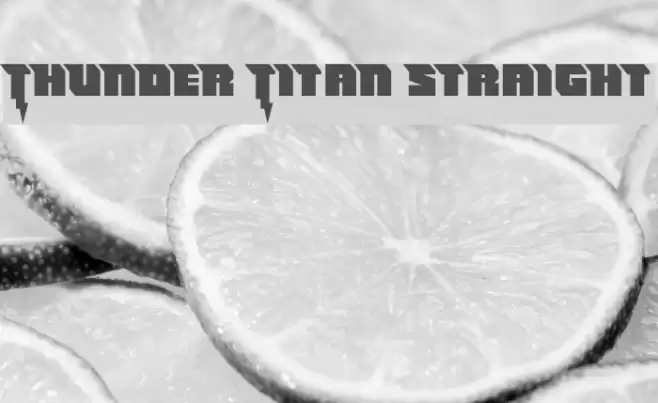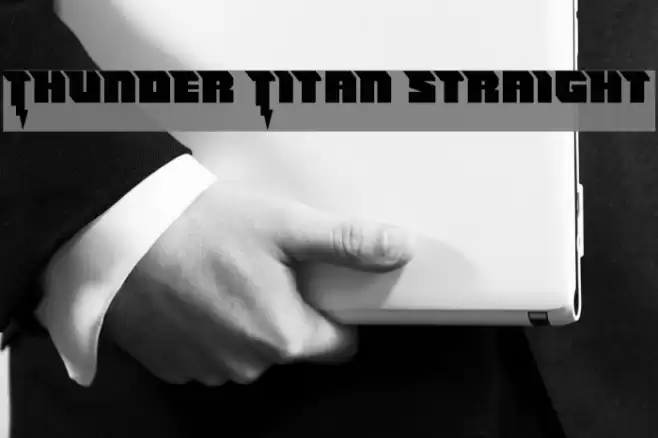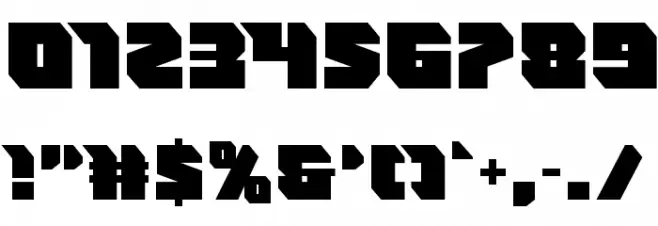
Thunder Titan Straight Font
Thunder Titan Straight Description
This font exhibits a bold and striking design, characterized by its angular, geometric shapes and sharp edges. The uppercase letters feature a distinct lightning bolt motif, adding a dynamic and energetic feel. The overall appearance is robust and impactful, making it ideal for attention-grabbing headlines or logos. The numbers and special characters maintain the same boldness and angularity, ensuring consistency across all glyphs. This font's unique style is perfect for projects that require a strong visual presence.
A bold, angular font with a lightning bolt motif, ideal for impactful designs from Uncategorized fonts.
- Proposed Projects: Perfect for branding, posters, music album covers, sports team logos, and any project needing a bold, energetic typeface.